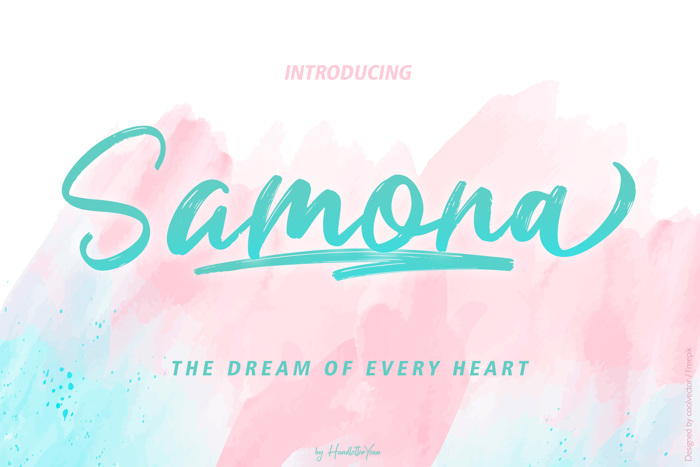
Samona Font
Samona is a simple handwritten script font that shows happiness, love, and hope in our life. Samona is easy to apply to any of your designs or artwork.